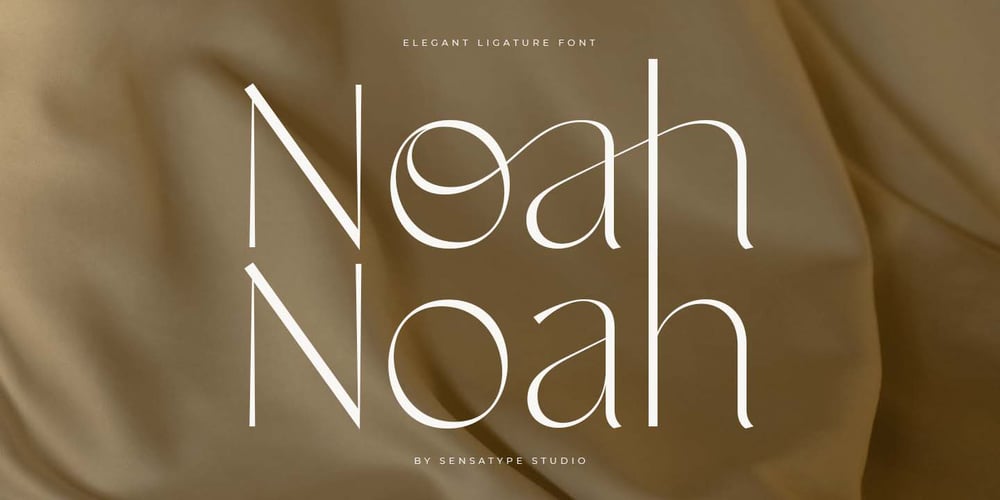
Noah SS Font Family was designed by Zamroni Hamzah and published by Sensatype Studio. Noah SS contains 1 styles and family package options. Noah – Elegant Ligature FontA new font that we created special for branding needs, with extra ligature in unique characters add value of your brand to look more elegant. It’s so nice to leverage designer or product owner that need solutions to make their design look more stylish and modern. And specially for Noah font, We prepared any ligatures, and any alternate characters to help you create unlimited variations for your creative needs.Noah Elegant Ligature Font ready with: Any options to get creative variations (combination of Alternate and Ligatures) Preview as a inspirations that you can do with Noah font Ready with Lowercase and Uppercase characters Wish you enjoy our font and if you have a question, Please don’t hesitate to drop message & I’m happy to help 🙂